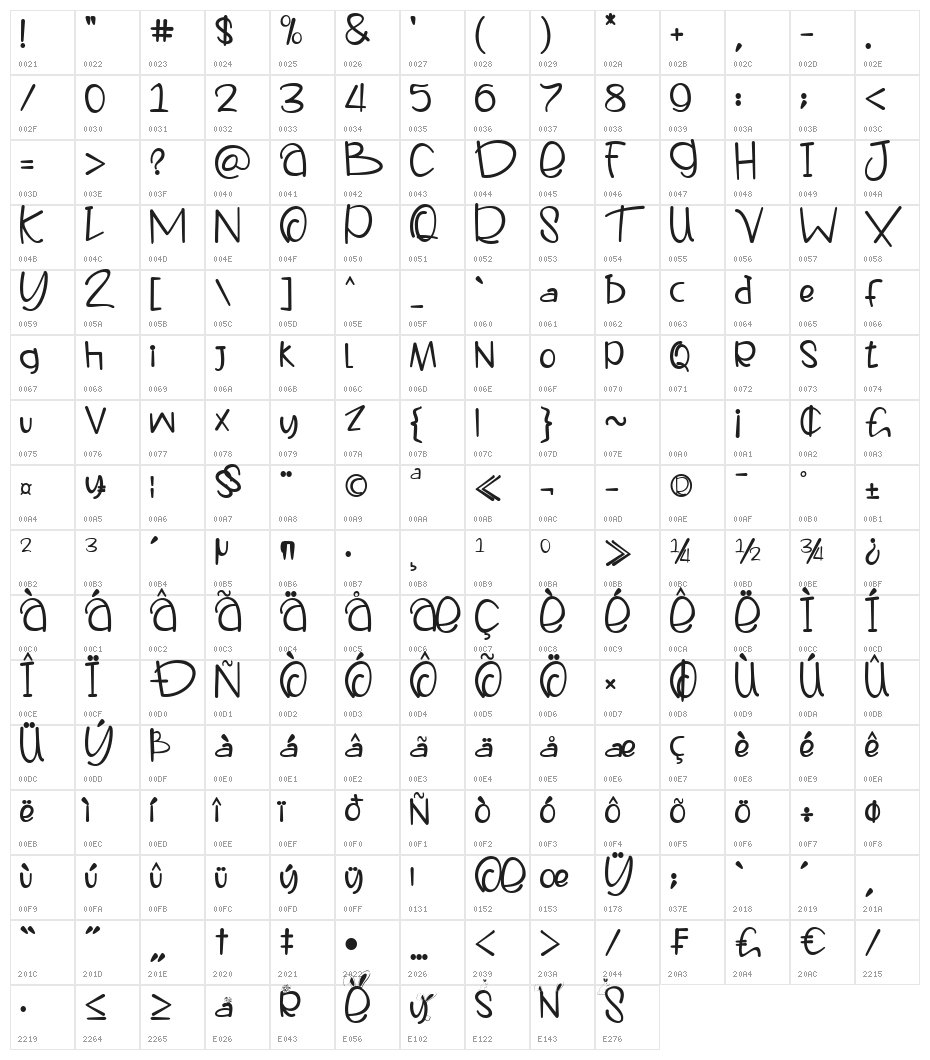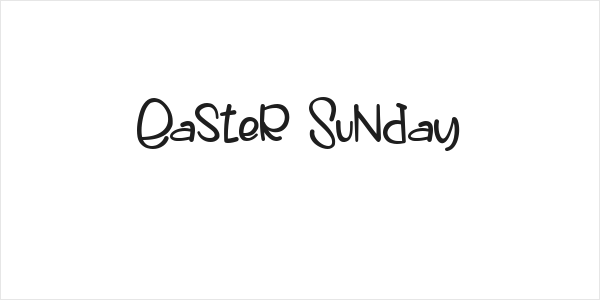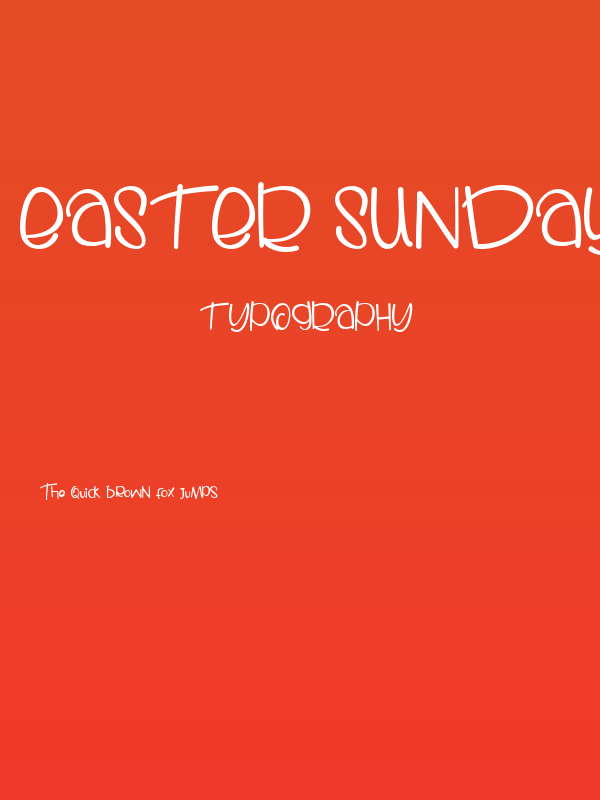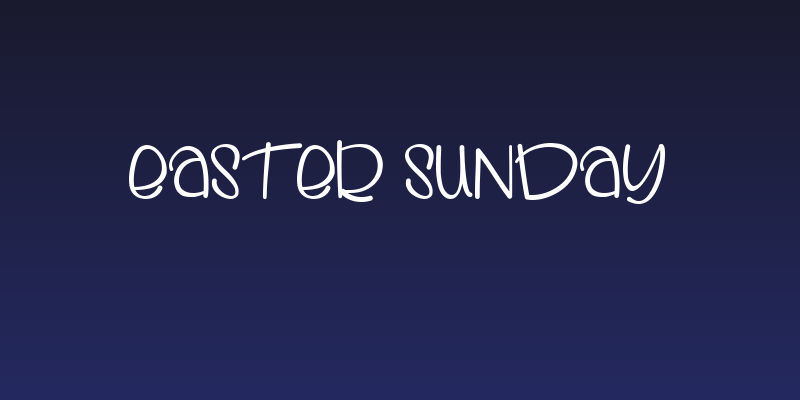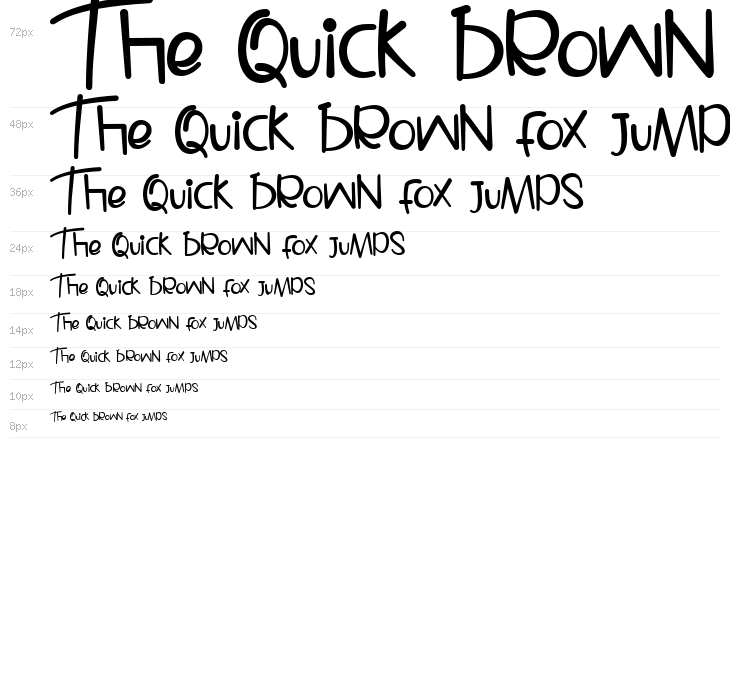
Easter Sunday Font
Easter Sunday Description
This playful and whimsical font features a handwritten style with a casual, friendly appearance. The letters are characterized by their rounded edges and slightly irregular shapes, giving them a lively and informal look. The uppercase and lowercase letters maintain a consistent style, with the uppercase being slightly taller and more pronounced. The numbers and special characters follow the same playful design, making the font versatile for various uses. The strokes are consistent in width, providing a uniform appearance across all characters. This font is ideal for projects that require a fun and approachable aesthetic.
| Use Case | Headlines, Logos, Casual Text |
| Proposed Projects | Ideal for greeting cards, children's books, playful branding, and casual invitations. |